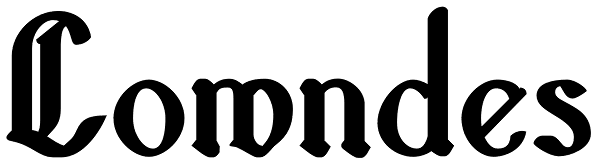
Lowndes
Lowndes is designed as a Blackletter display face with a spirit of fun rather than historical accuracy, and with an emphasis on legibility and clarity. It's ideal for festive design such as cards, posters etc... Have fun!